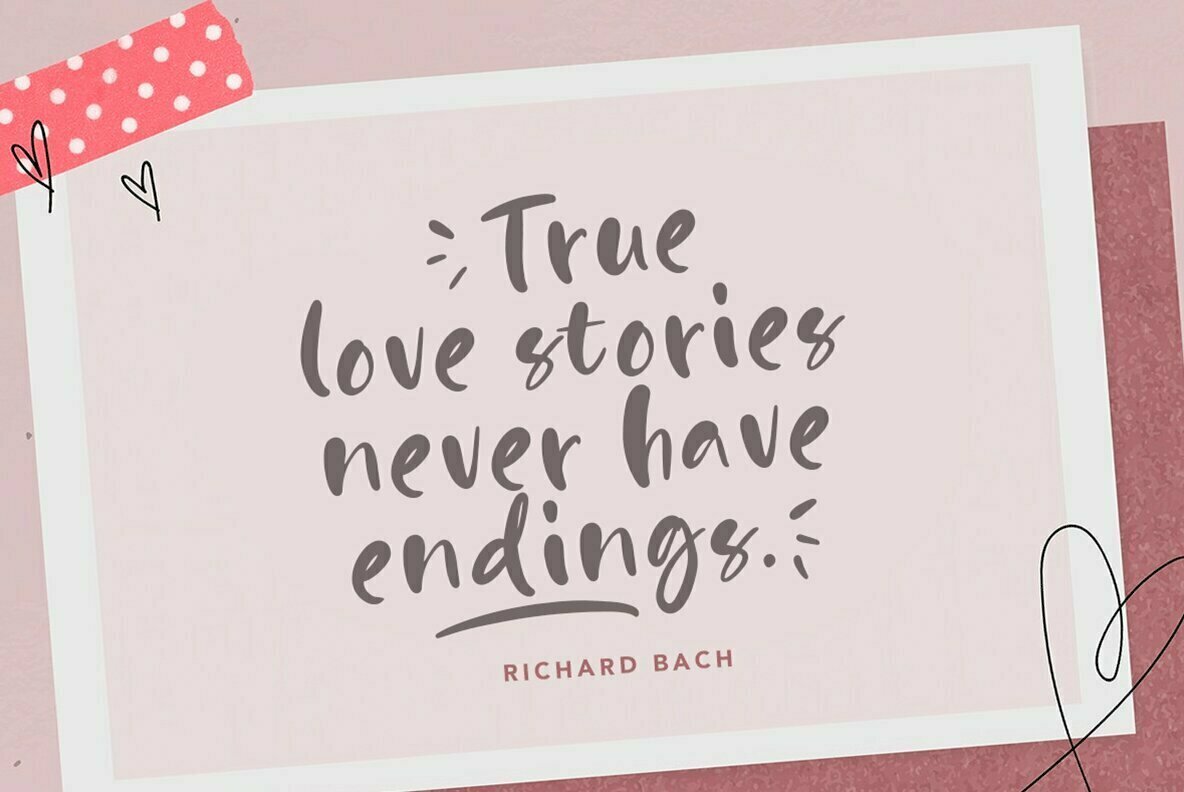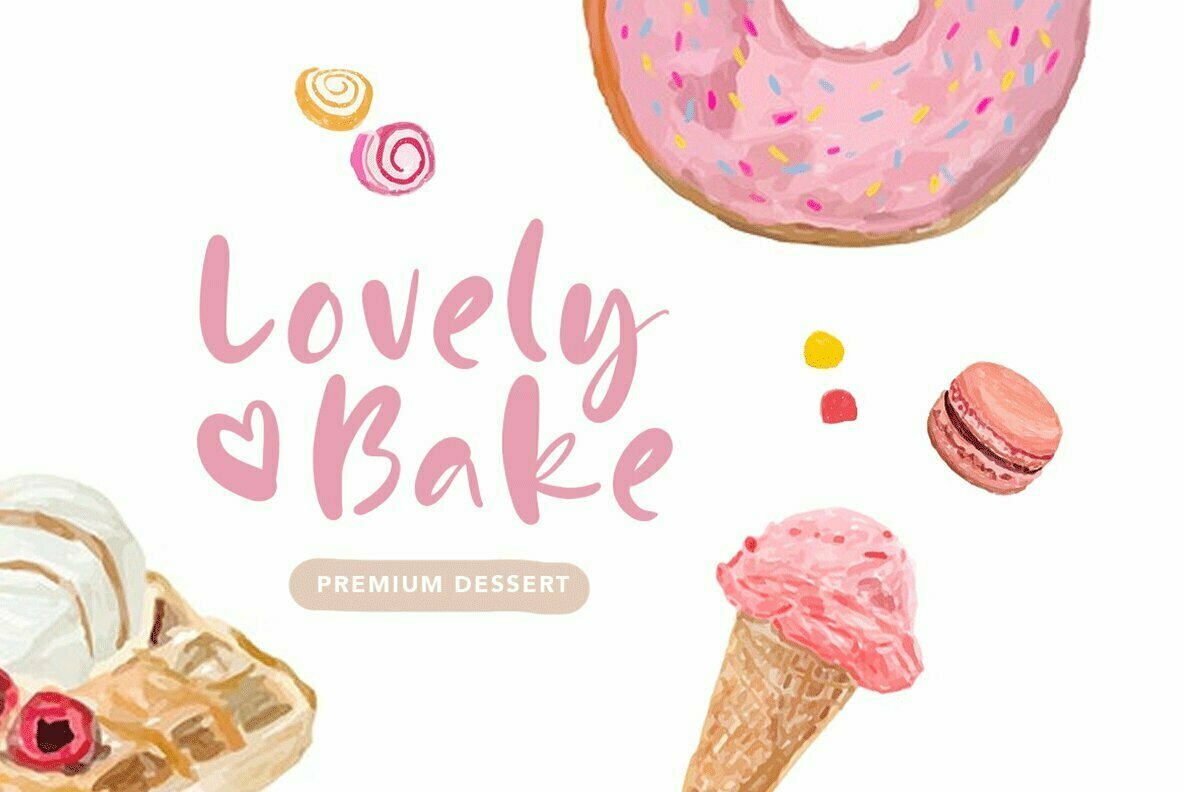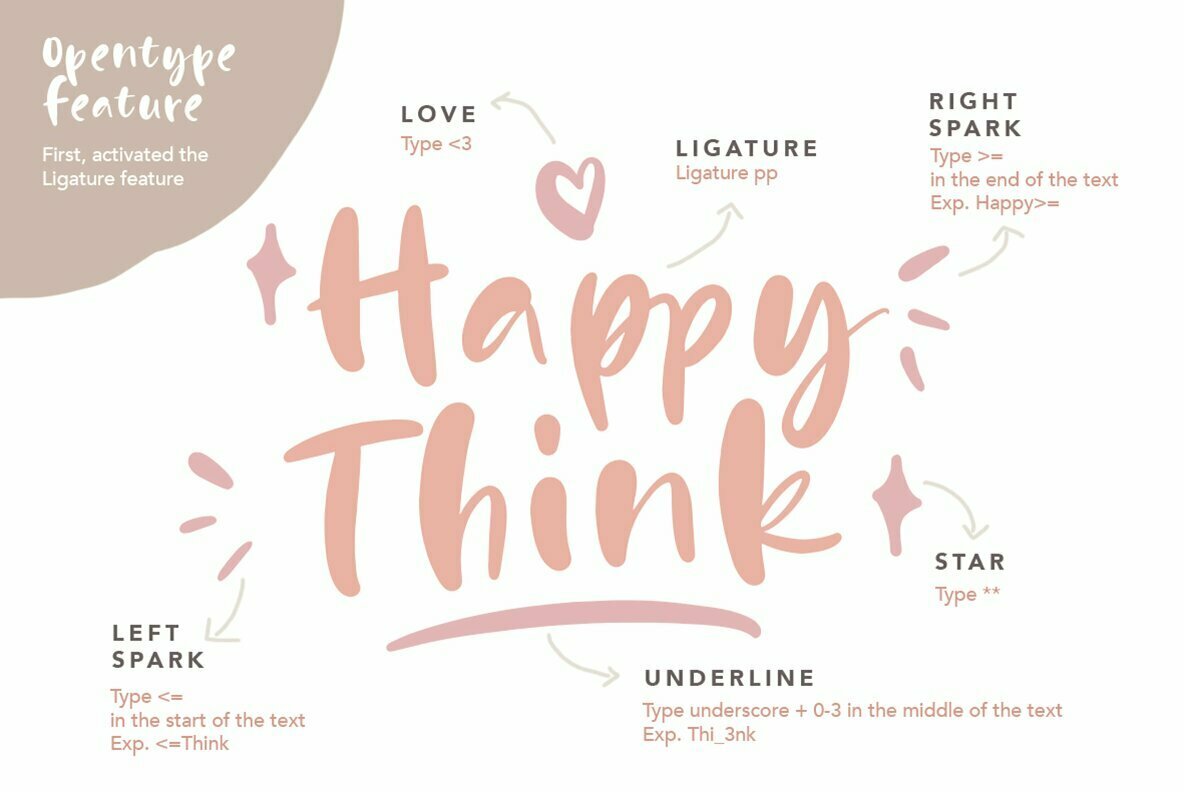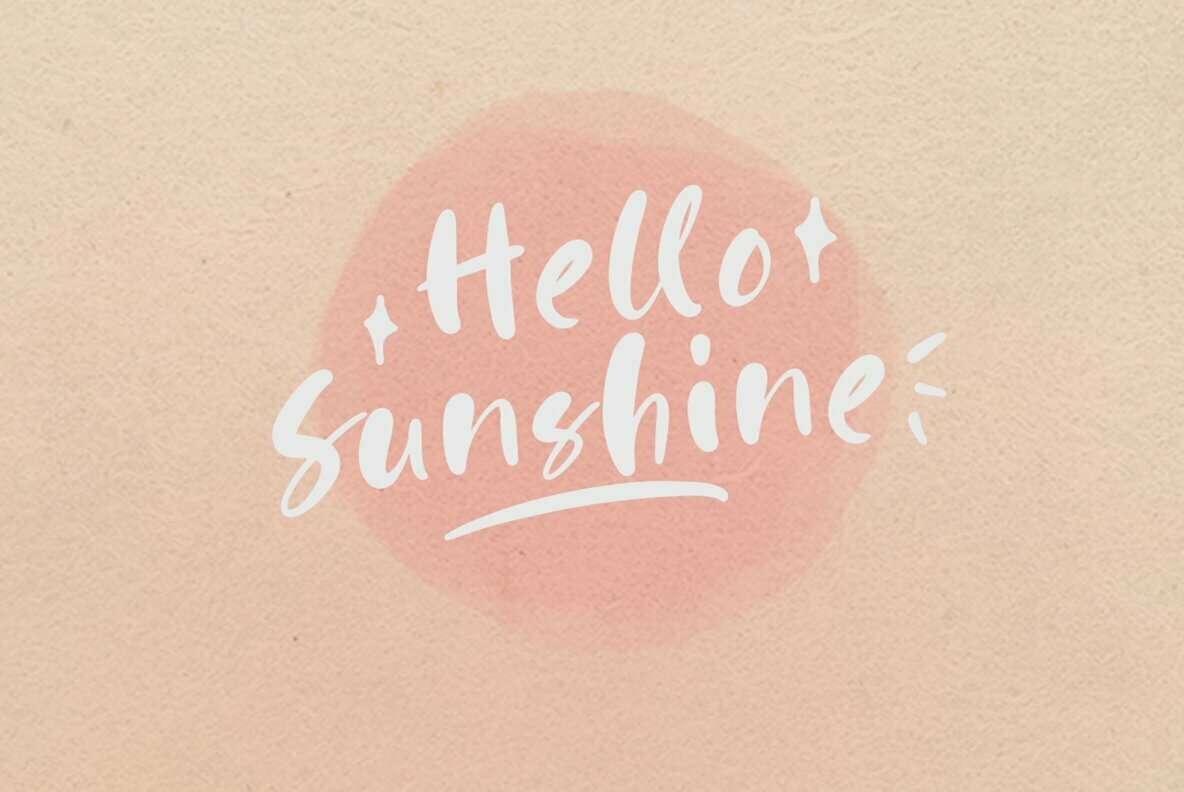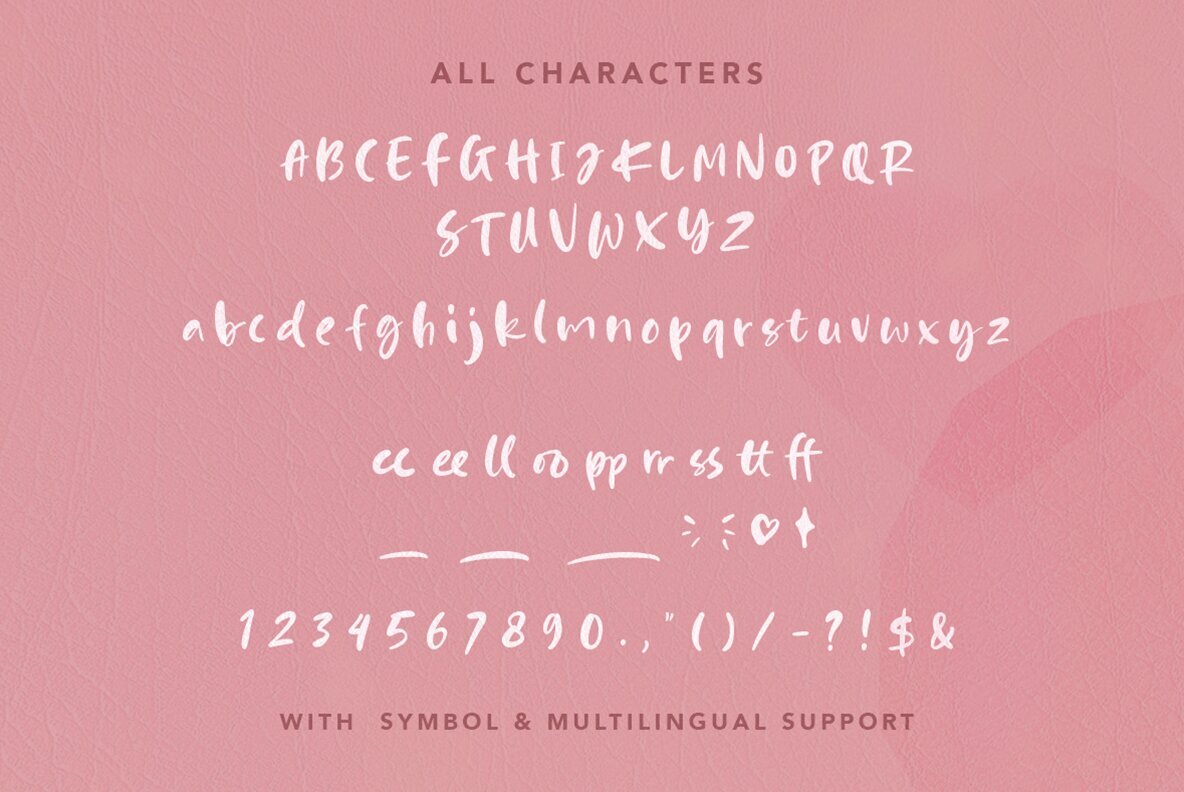
Happy Pink Font
Happy Pink Regular
Happy Pink delivers a fresh take on brush lettering, making a statement across various design projects. Its vibrant and dynamic style is ideal for injecting energy and personality into your branding efforts.Happy Pink: Natural Brush Lettering for Bold Appeal